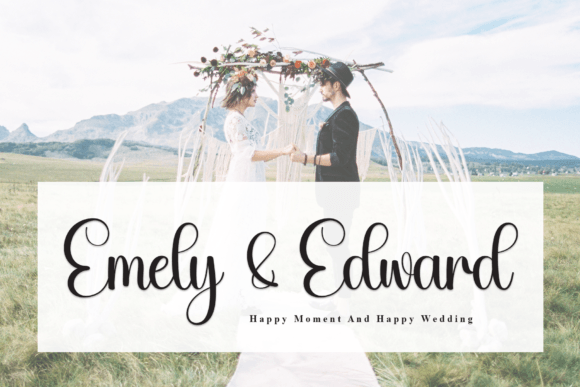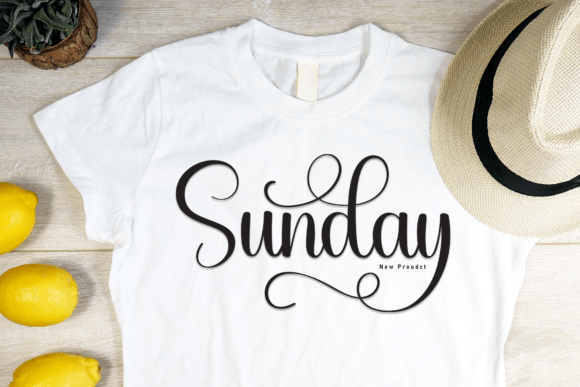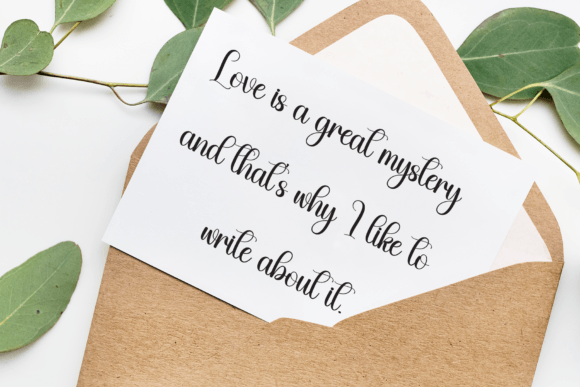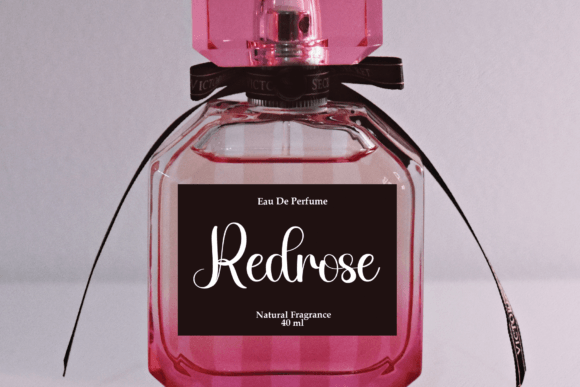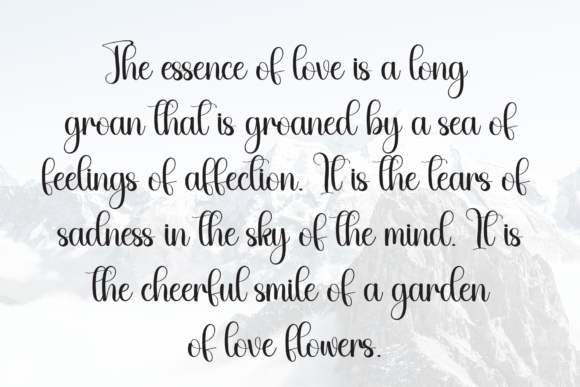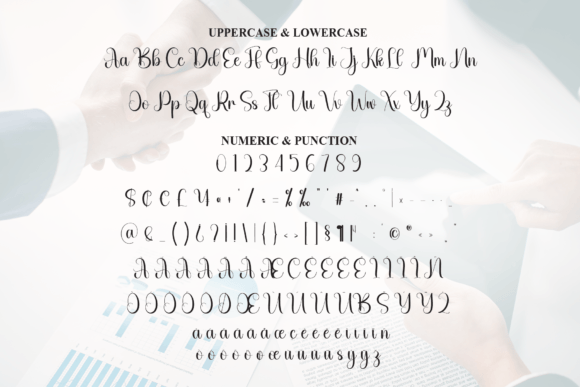
Introducing Finally Font: Elevate Your Designs with Elegance and Personality
In the world of typography, a font can make or break the aesthetic of a design. For designers and crafters seeking to add a touch of sophistication and charm to their projects, Finally Font is an exceptional choice. This modern and charming handwritten font is designed to exude elegance and personality, making it perfect for upscale invitations, personal branding, and chic editorial designs.
The Characteristics of Finally Font
Finally Font boasts graceful, flowing strokes that bring a sense of fluidity and movement to any design. Its sophisticated character is evident in its refined lines and classic feel, which sets it apart from more casual or generic fonts. The font’s unique blend of modern charm and traditional elegance makes it an excellent choice for designers looking to create visually stunning and memorable pieces.
Uses for Finally Font
The versatility of Finally Font makes it suitable for a wide range of applications. Some of the most popular uses for this font include:
- Upscale Invitations: Whether you’re planning a wedding, a baby shower, or another special event, Finally Font can add a touch of luxury and sophistication to your invitations.
- Personal Branding: For entrepreneurs and small business owners, establishing a strong brand identity is crucial. Finally Font can help you create a cohesive and elegant visual brand that sets you apart from the competition.
- Chic Editorial Designs: From fashion magazines to lifestyle blogs, Finally Font can add a touch of glamour and refinement to your editorial designs.
Benefits of Using Finally Font
So why choose Finally Font for your next design project? Here are just a few benefits of using this exceptional font:
- Elegance: Finally Font’s refined lines and classic feel make it an excellent choice for designers seeking to add a touch of sophistication to their work.
- Personality: This font’s unique character and charm can help your designs stand out and leave a lasting impression on your audience.
- Versatility: Whether you’re working on a formal invitation or a fashion editorial, Finally Font can adapt to a wide range of design styles and applications.
Tips for Using Finally Font Effectively
To get the most out of Finally Font, here are a few tips to keep in mind:
- Pair it with neutral colors: Finally Font’s elegance and sophistication can be complemented by neutral colors like black, white, and gray.
- Experiment with font sizes: This font’s versatility means it can be used at a variety of font sizes, from large headlines to smaller body text.
- Add decorative elements: Consider adding decorative elements like ribbons, flowers, or other design elements to enhance the font’s elegance and charm.
In conclusion, Finally Font is an exceptional choice for designers and crafters seeking to add a touch of elegance and personality to their work. Its unique blend of modern charm and traditional sophistication makes it perfect for upscale invitations, personal branding, and chic editorial designs. With its versatility, elegance, and personality, Finally Font is sure to elevate your projects and leave a lasting impression on your audience.